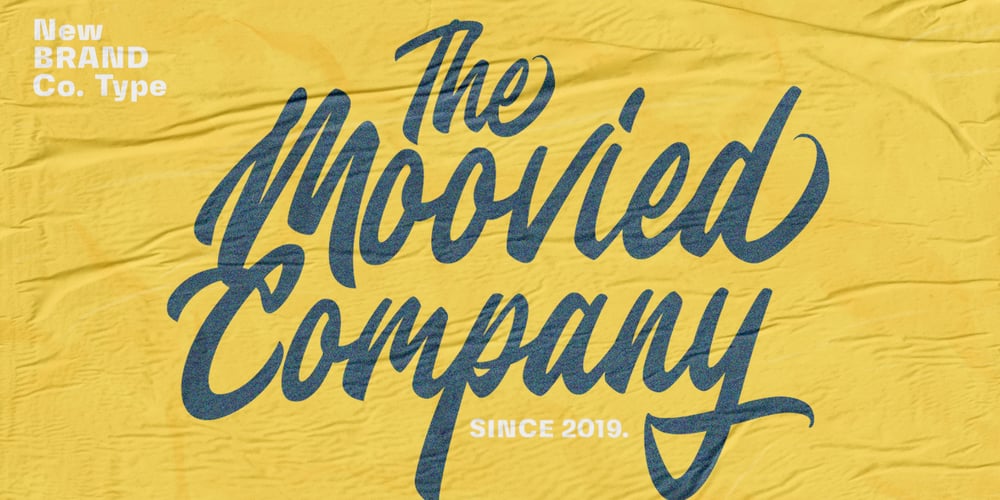
Jesselyne Script Font Family was designed by Haris Purnama Putra and published by Moovied Co.. Jesselyne Script contains 2 styles and family package options. Jesselyne Script is inspired by urban, streetwear and vintage made with a lovely hand-lettering style. It is ideal for branding, logos, handwriting quotes, product packaging, headers, posters, merchandise, social media Books / Cover titles, special events, etc. To enable the OpenType Stylistic alternates, you need a program that supports OpenType features such as Adobe Illustrator CS, Adobe Indesign & CorelDraw X6-X7. There are additional ways to access alternates, using Character Map (Windows), Nexus Font (Windows), Font Book (Mac) or a software program such as PopChar (for Windows and Mac). Thank you for your purchase! Happy creating!